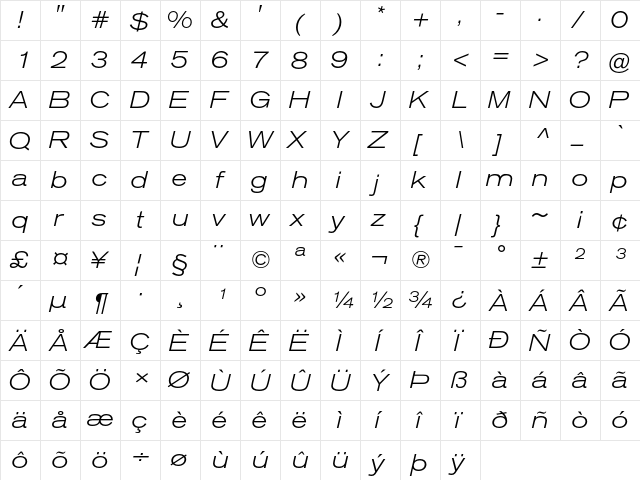
Akzidenz-Grotesk BQ Light Extended Italic
Design Context for Akzidenz-Grotesk BQ Typeface
Akzidenz-Grotesk BQ has the quiet confidence of well-executed sans-serif typography: versatile, unobtrusive, and dependable at any size. The dynamic lean of this cut emphasises speed and emphasis in any layout. Its slender proportions lend an understated elegance to any composition.
Ideal for fashion and beauty branding, minimal editorial layouts, and premium digital experiences.
Font Pairing: Pair Akzidenz-Grotesk BQ with a medium or bold serif for headlines — the weight contrast creates an elegant, high-end feel.
Pro Tip: Avoid using Akzidenz-Grotesk BQ at very small sizes where its slender strokes can disappear. It performs best at medium to large sizes.